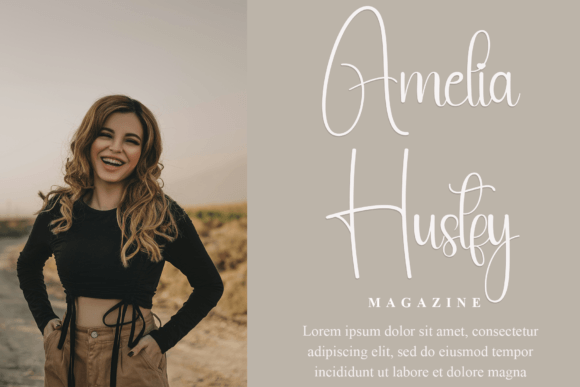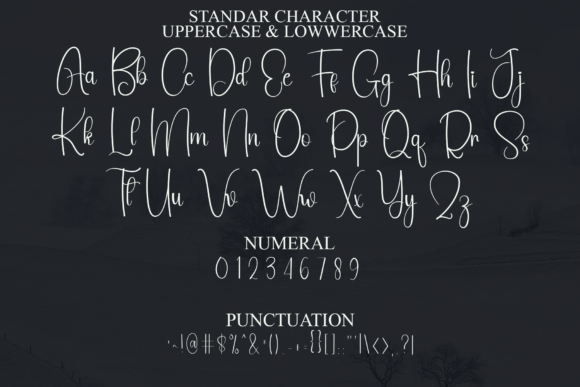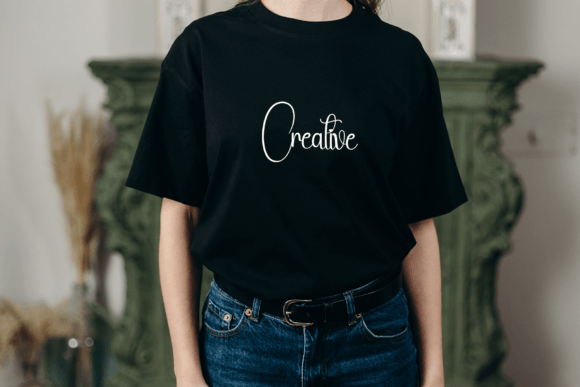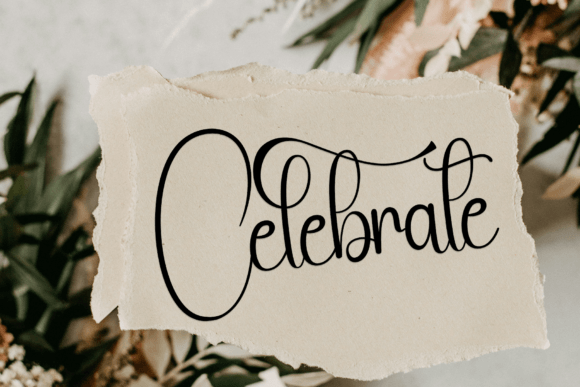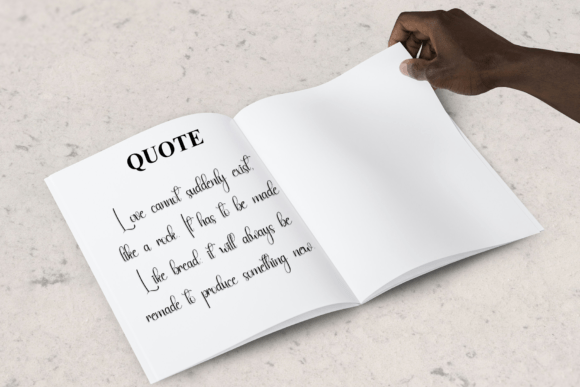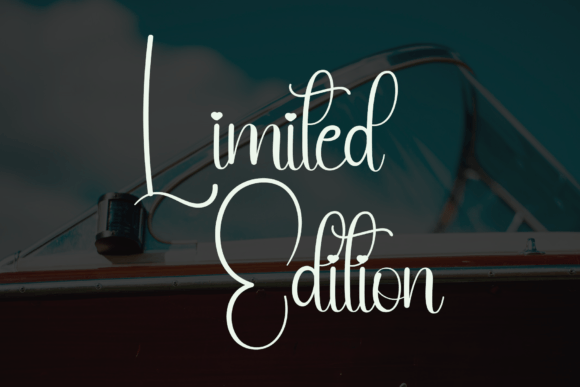
Introducing Exclusive Font: Elevate Your Designs with Elegance
In the world of design, fonts play a crucial role in conveying the message and aesthetic of a project. Among the myriad of fonts available, finding that perfect, elegant, and versatile typeface can be a challenge. This is where Exclusive Font comes into play, a delicate, elegant, and flowing handwritten font designed to bring a touch of sophistication to your creations.
The Essence of Exclusive Font
Exclusive Font is not just another addition to the vast collection of fonts; it’s a masterpiece crafted with precision and passion. Its characters are beautifully designed and well-balanced, making it an ideal match for a wide range of designs. Whether you’re working on a branding project, a wedding invitation, a fashion blog, or any creative endeavor, Exclusive Font is poised to add that extra layer of elegance and charm.
Exclusive Font Example
One of the standout features of Exclusive Font is its versatility. Its elegant flow and delicate structure can seamlessly blend into various design contexts. Here are a few ways you can incorporate Exclusive Font into your projects:
• Branding and Logotypes: Create a lasting impression with a sophisticated and elegant brand identity.
• Wedding and Event Invitations: Add a touch of class and romance to your invitations and save-the-date cards.
• Fashion and Beauty: Perfect for fashion blogs, beauty product packaging, and promotional materials.
• Packaging: Elevate your product packaging with a font that exudes luxury and elegance.
Exclusive Font is PUA (Private Use Area) coded, which means accessing the amazing glyphs and ligatures is effortless. This feature is particularly beneficial for designers who want to add a unique touch to their work without the hassle of complicated font management. With PUA coding, you can easily access:
• Glyphs: A variety of glyphs to add decorative elements to your designs.
• Ligatures: Automatically replace sequences of characters with a single glyph for a more elegant look.
Why Choose Exclusive Font?
With so many fonts available, why should Exclusive Font be your go-to choice? Here are a few compelling reasons:
• Unique and Memorable: Stand out from the crowd with a font that is both elegant and distinctive.
• Time-Saving: Thanks to its PUA coding, you can quickly access and use the font’s features without spending extra time on design adjustments.
• Support for Multiple Languages: Cater to a global audience with a font that supports multiple languages.
Exclusive Font is more than just a typeface; it’s a design statement. Its delicate, elegant, and flowing characteristics make it an invaluable asset for designers and crafters looking to infuse their projects with a touch of sophistication. With its PUA coding for easy access to glyphs and ligatures, and its versatile nature, Exclusive Font is set to become your favorite companion in the world of design. So, add it to your most creative ideas and watch them come alive with elegance and charm.